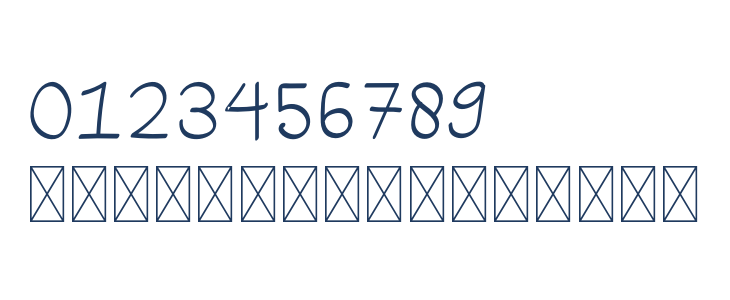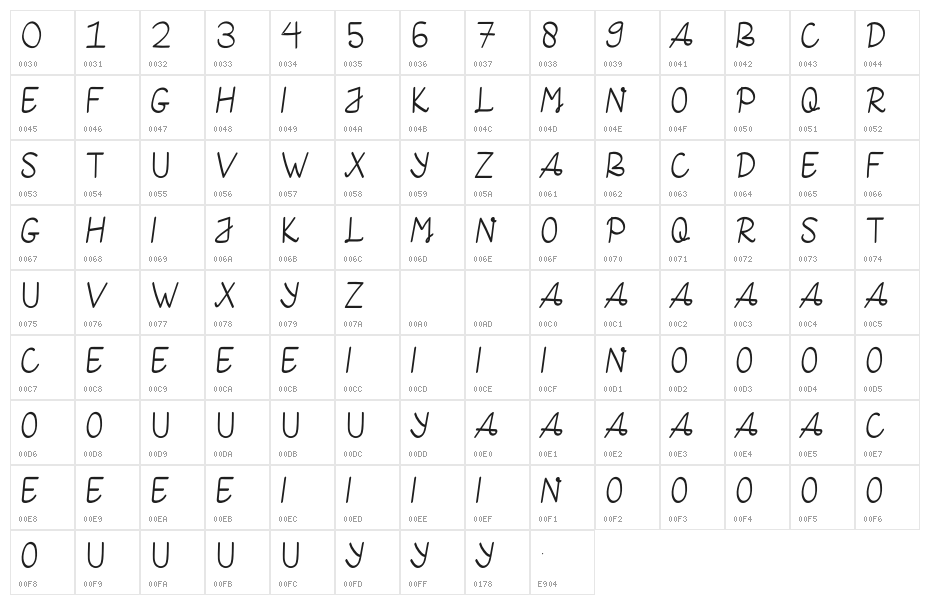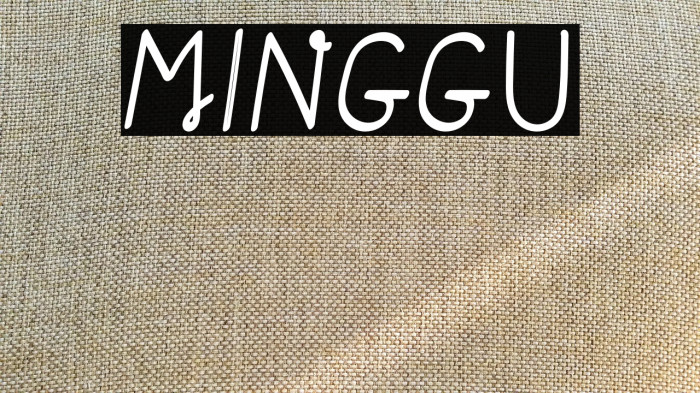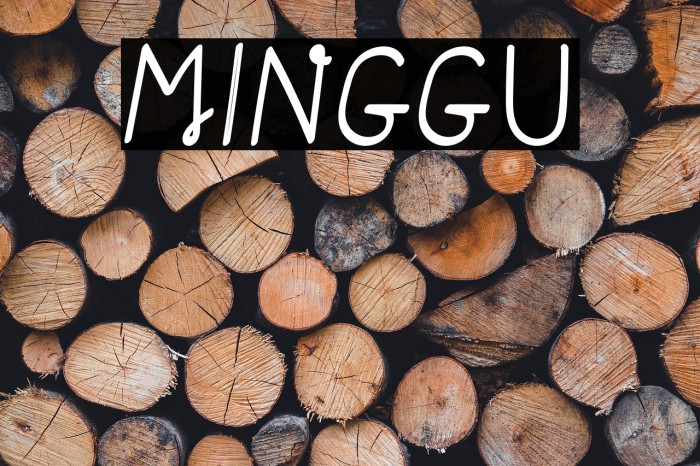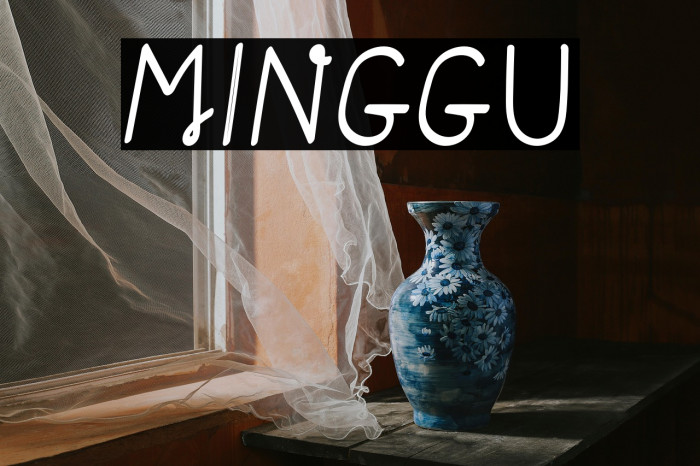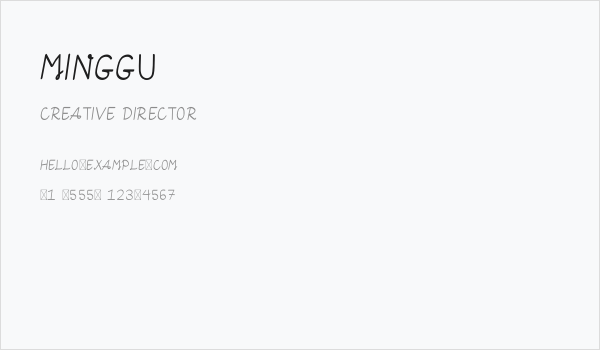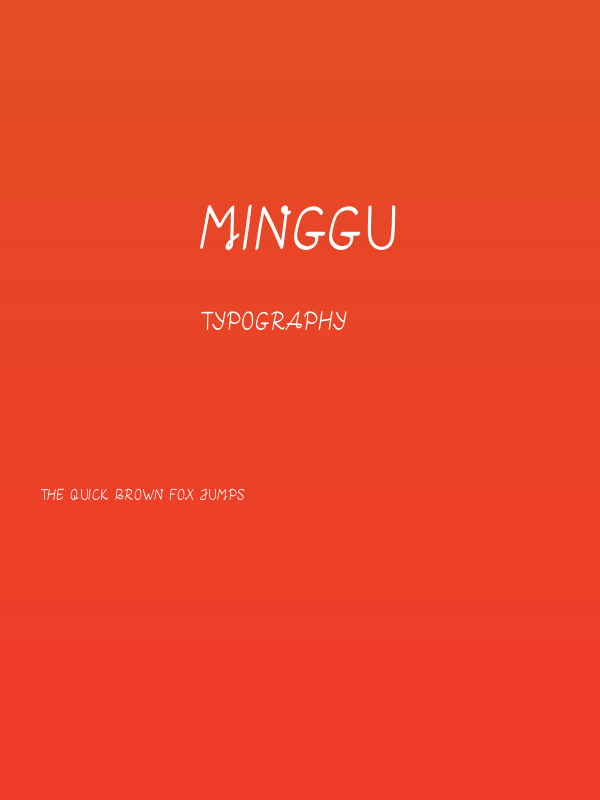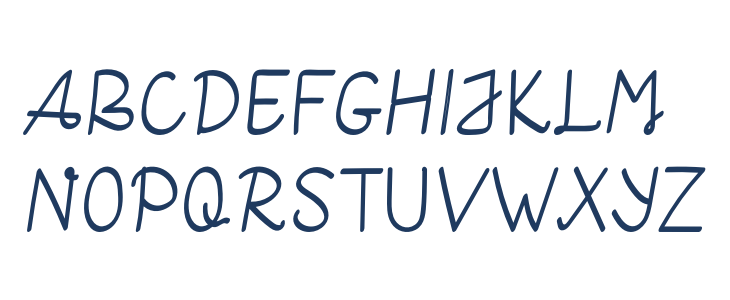
MINGGU Font
MINGGU Description
This font features a playful and casual handwritten style, characterized by its smooth, flowing curves and slightly tilted letters. The uppercase and lowercase letters maintain a consistent style, with rounded edges and a slight slant that gives the font a dynamic and informal appearance. The numerals are clear and legible, matching the overall aesthetic with their rounded forms. The font lacks any additional decorative elements, focusing on simplicity and readability. The special characters are consistent with the rest of the font, maintaining the same playful and approachable style.
| Use Case | Headlines, Informal text, Personal projects |
| Proposed Projects | Ideal for greeting cards, invitations, personal branding, and informal digital content. |